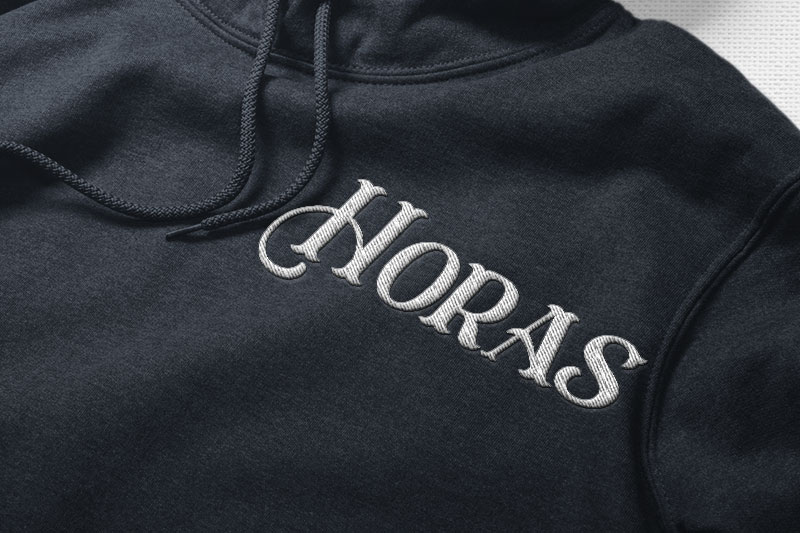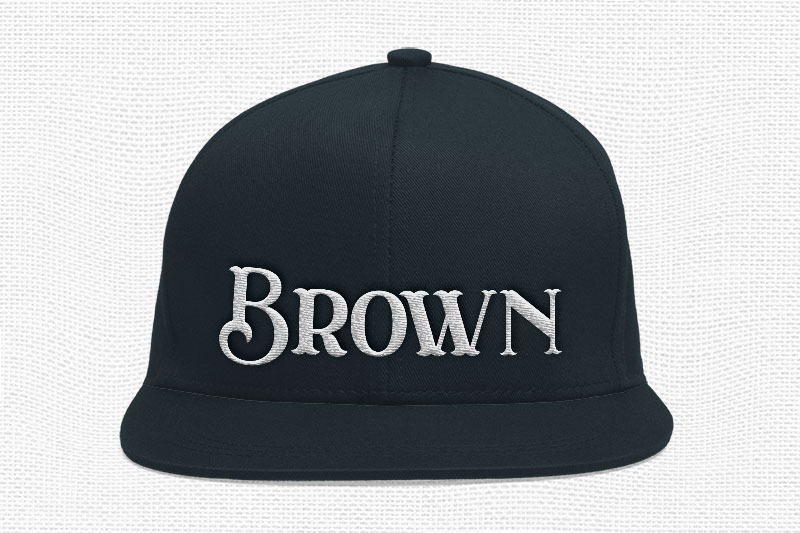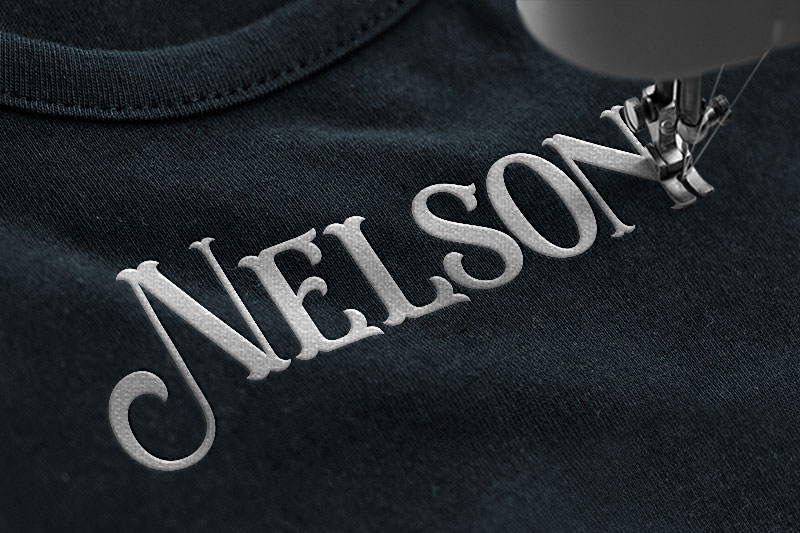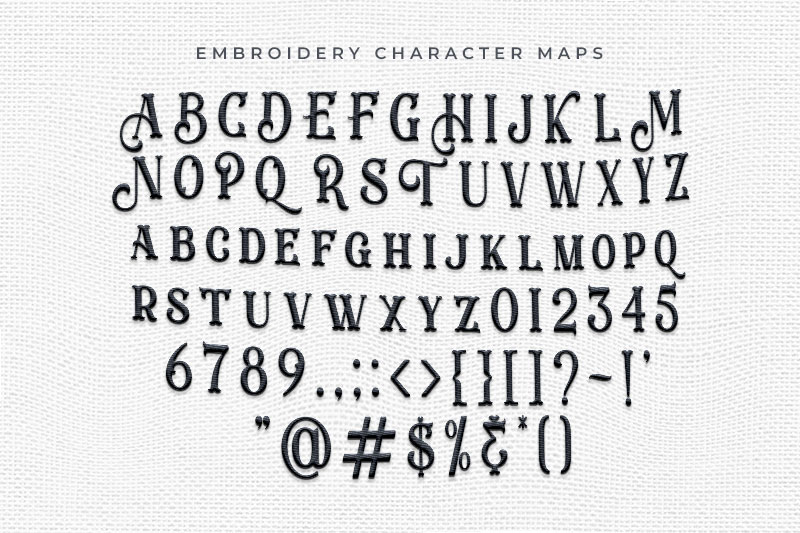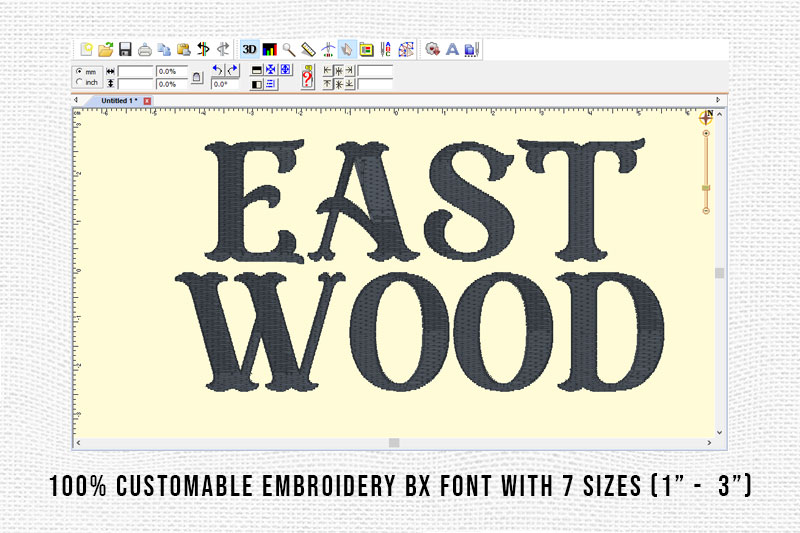
Eastwood Embroidery Font provides a new look that is different from the general fonts. This font is a serif font that carries a vintage, simple, and upright feel. It can also use as a bold and modern font.
with this typeface. There is no need to add excessive pictures and ornaments because Eastwood Embroidery Font has presented its identity where a simple yet vintage impression radiates. Eastwood Embroidery Font is a typeface that can use as digital fonts and embroidery fonts. This font can use as a text in the t-shirt, hat, jacket, and others.
Posters and magazine cover work especially well when using the Eastwood Embroidery Font. This is because even though this font is a serif typeface, it can be seen clearly and can be distinguished per letter. So this font is included in legible fonts.